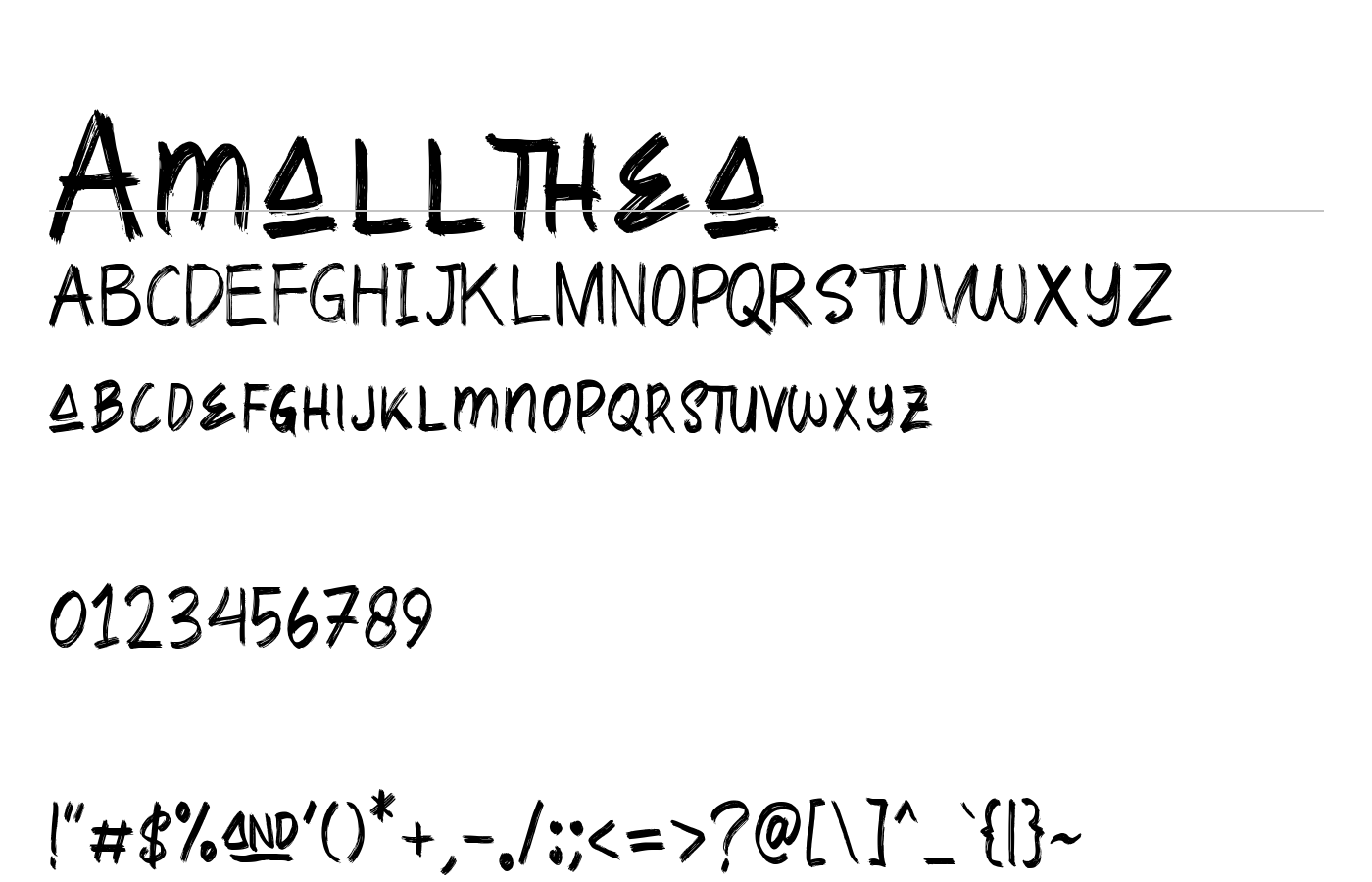
Amallthea is a playful, hand-drawn sans serif font with an energetic and casual vibe. Its uneven strokes and quirky letterforms give it a lively, informal feel perfect for creative and youthful designs. This font works great for fun branding, posters, and social media where a personal, artistic touch is desired.
Amallthea Font
About Amallthea Font
| Font family | Amallthea Font |
| Designer | AEN Creative Studio 2022 |